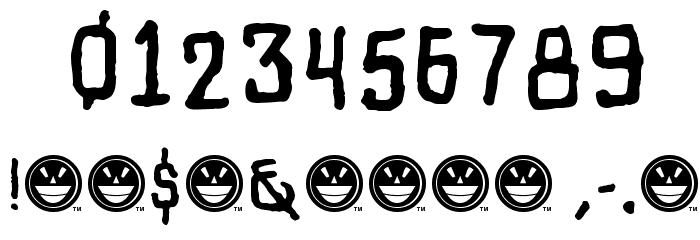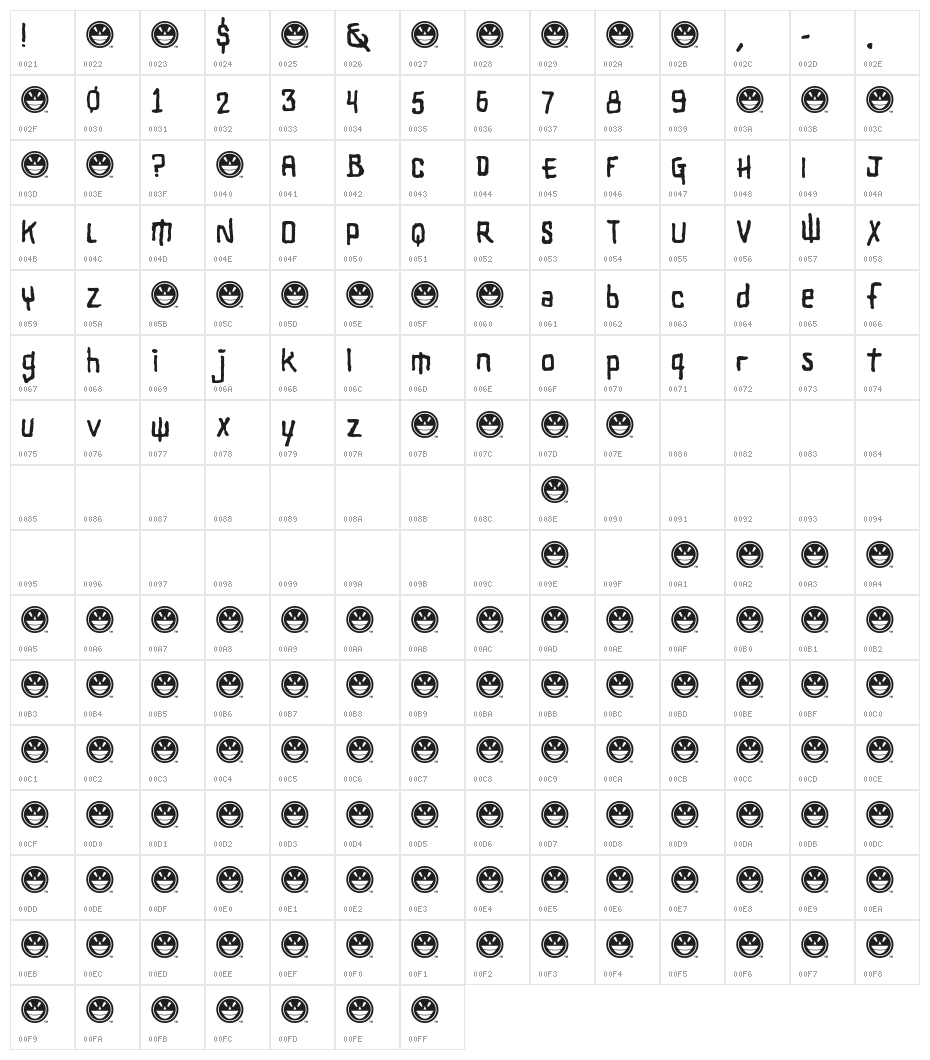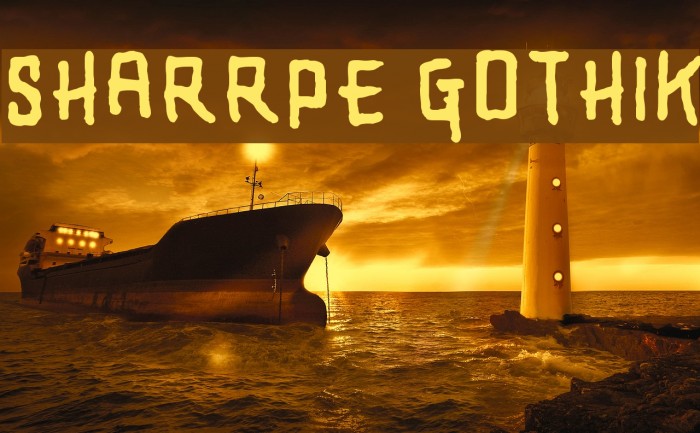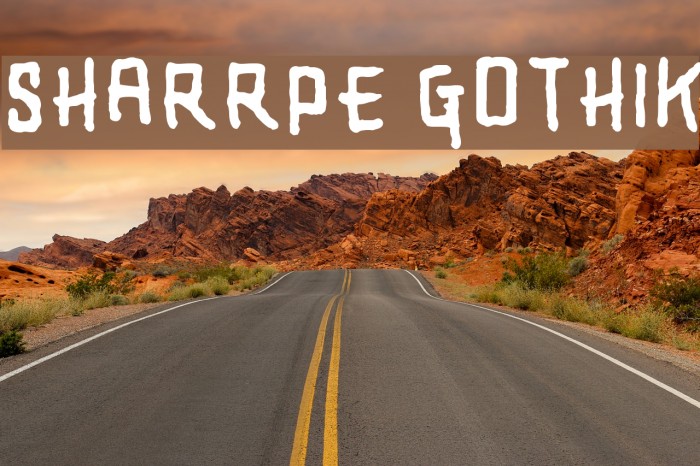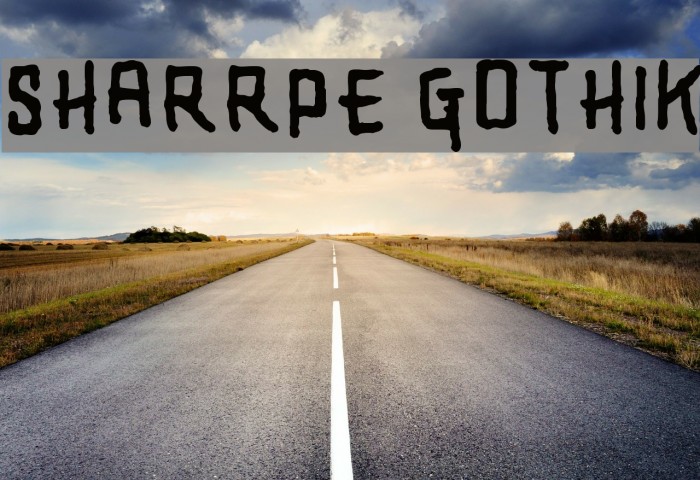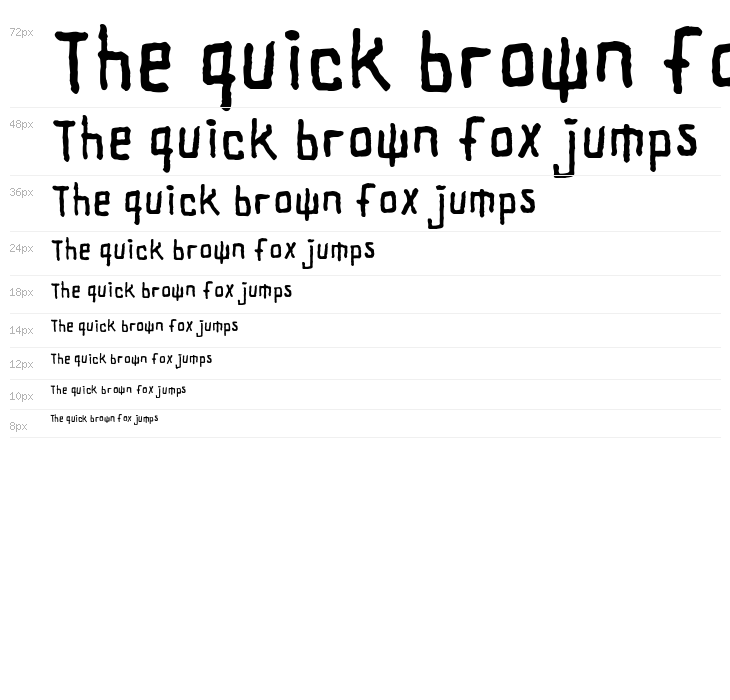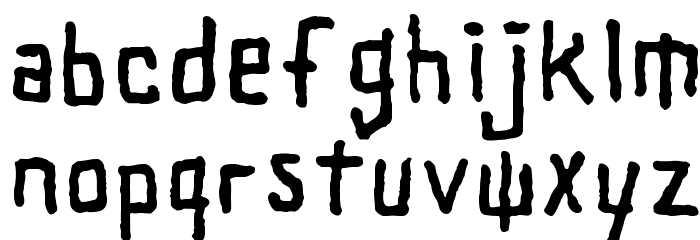
SHARRPE GOTHIK Font
SHARRPE GOTHIK Description
This font features a bold, rugged style with a hand-drawn appearance. The characters are uneven and slightly distorted, giving them a unique, organic feel. The uppercase and lowercase letters maintain a consistent height, with a playful yet edgy aesthetic. The numbers and special characters follow the same design principles, adding to the overall cohesiveness. This font's rough edges and irregular shapes make it stand out, offering a distinctive look that is both modern and reminiscent of graffiti or street art.
| Overall Style | Modern, Graffiti |
| Use Case | Logos, Posters, Album Covers |
| Proposed Projects | Ideal for street art-inspired designs, edgy branding, album covers, or any project needing a bold, unconventional typeface. |